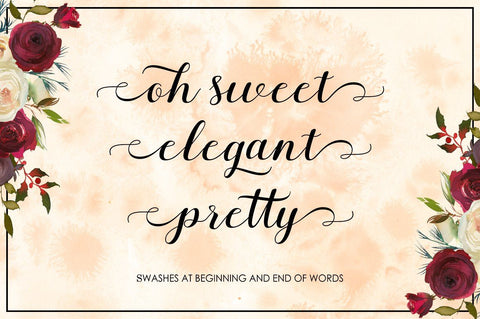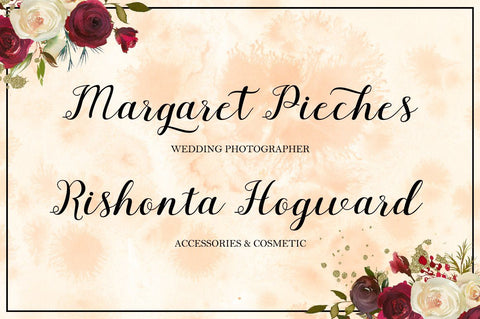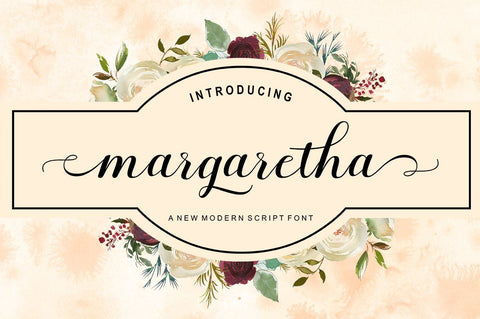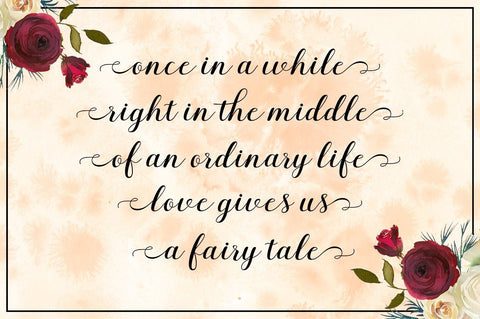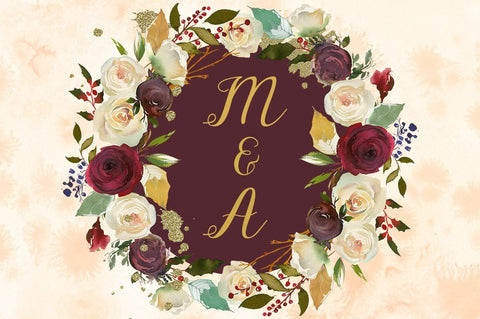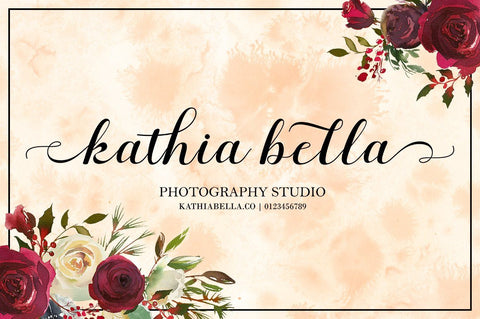
Margaretha Script
Margaretha Script is modern handwritten calligraphy typeface with dancing up and down the baseline. that comes with lovely alternates. Works perfectly for logos, fashion, stationery, letterpress, magazines, menus, books, invitations, wedding / greeting cards, packaging, labels, apparel, marketing etc.
Margaretha Script including initial and terminal letters, alternates, ornaments, ligatures and multiple language support.